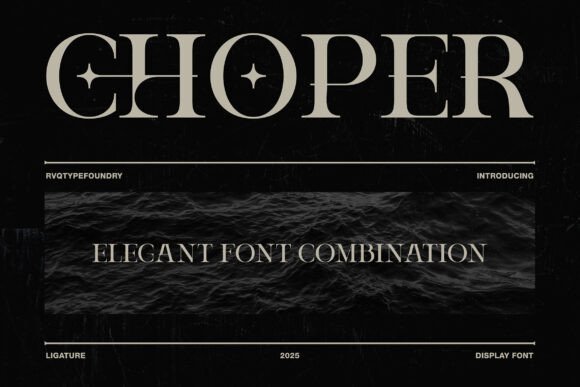
Introducing Choper Font: The Epitome of Elegance and Sophistication
In the realm of typography, few fonts manage to strike a balance between modernity and classic charm. Choper Font, however, is a notable exception. This sophisticated and elegant serif font brings a touch of vintage allure to the table, making it an ideal choice for designers seeking to infuse their projects with luxury and timeless appeal.
The Characteristics of Choper Font
Choper Font boasts an array of refined features that set it apart from other serif fonts. Some of its key characteristics include:
- Refined Ligatures: Choper Font features exquisite ligatures that add a layer of sophistication to any text. These ligatures are meticulously crafted to provide a seamless reading experience while enhancing the aesthetic appeal of the font.
- Stylish Letterforms: Each letterform in Choper Font is designed with elegance in mind. The stylish and refined letterforms contribute to the font’s luxurious feel, making it perfect for high-end applications.
- Vintage Charm: Choper Font’s vintage charm is one of its most distinctive features. The font’s classic roots are evident in its design, which pays homage to traditional serif fonts while incorporating modern elements.
Applications of Choper Font
Given its sophisticated and elegant nature, Choper Font is suitable for a wide range of applications. Some of the most notable uses of this versatile font include:
- Branding: For brands aiming to convey luxury, elegance, and sophistication, Choper Font is an excellent choice. Its refined appearance makes it ideal for logos, wordmarks, and other brand identity elements.
- Editorial Design: Choper Font’s readability and aesthetic appeal make it perfect for editorial design projects, such as magazines, newspapers, and books. Its classic feel ensures that it will stand the test of time, while its modern elements keep it fresh and engaging.
- High-End Packaging: For luxury products, packaging is crucial. Choper Font can elevate packaging design with its sophisticated and elegant appearance, helping to create a lasting impression on consumers.
- Stylish Headlines: Choper Font’s stylish letterforms and refined ligatures make it an excellent choice for headlines. Whether used in advertising, editorial design, or digital media, Choper Font can help create attention-grabbing headlines that exude class and sophistication.
The Benefits of Using Choper Font
Choper Font offers several benefits that make it a valuable addition to any designer’s toolkit. Some of the key advantages of using Choper Font include:
- Timeless Appeal: Unlike trendy fonts that may quickly become outdated, Choper Font’s classic design ensures that it will remain relevant for years to come. Its timeless appeal makes it a wise investment for designers who want to create enduring designs.
- Versatility: Choper Font’s balance of modern and classic aesthetics makes it incredibly versatile. It can be used in a wide range of applications, from branding and editorial design to packaging and headlines.
- Legibility: Despite its elegant and refined nature, Choper Font remains highly legible. This makes it suitable for body text as well as headlines, ensuring that your message is conveyed clearly and effectively.
- Uniqueness: While Choper Font draws inspiration from classic serif fonts, its unique design elements set it apart from more traditional typefaces. Using Choper Font can help your designs stand out in a crowded marketplace.
Tips for Using Choper Font Effectively
To get the most out of Choper Font, consider the following tips:
- Pair with Complementary Fonts: While Choper Font is elegant on its own, it can be paired with other fonts to create visual interest. Choose fonts that complement its classic feel, such as sans-serif fonts for contrast.
- Adjust Letter Spacing: To enhance readability, especially in longer texts, adjust the letter spacing. This can help prevent the text from appearing too dense and ensure a smooth reading experience.
- Use Ligatures: Take advantage of Choper Font’s refined ligatures to add an extra layer of sophistication to your text. Ligatures can make a significant difference in the overall aesthetic of your design.
- Experiment with Weights: If Choper Font comes in multiple weights, experiment with different weights to create visual hierarchy in your design. Using a heavier weight for headlines and a lighter weight for body text can enhance readability and visual appeal.
Choper Font is a sophisticated and elegant serif font that brings a touch of vintage charm to any design project. Its refined ligatures, stylish letterforms, and timeless appeal make it an excellent choice for designers seeking to create luxurious and sophisticated designs. Whether used for branding, editorial design, high-end packaging, or stylish headlines, Choper Font is sure to leave a lasting impression. With its versatility, legibility, and unique design elements, Choper Font is a must-have for any designer looking to elevate their work to the next level.